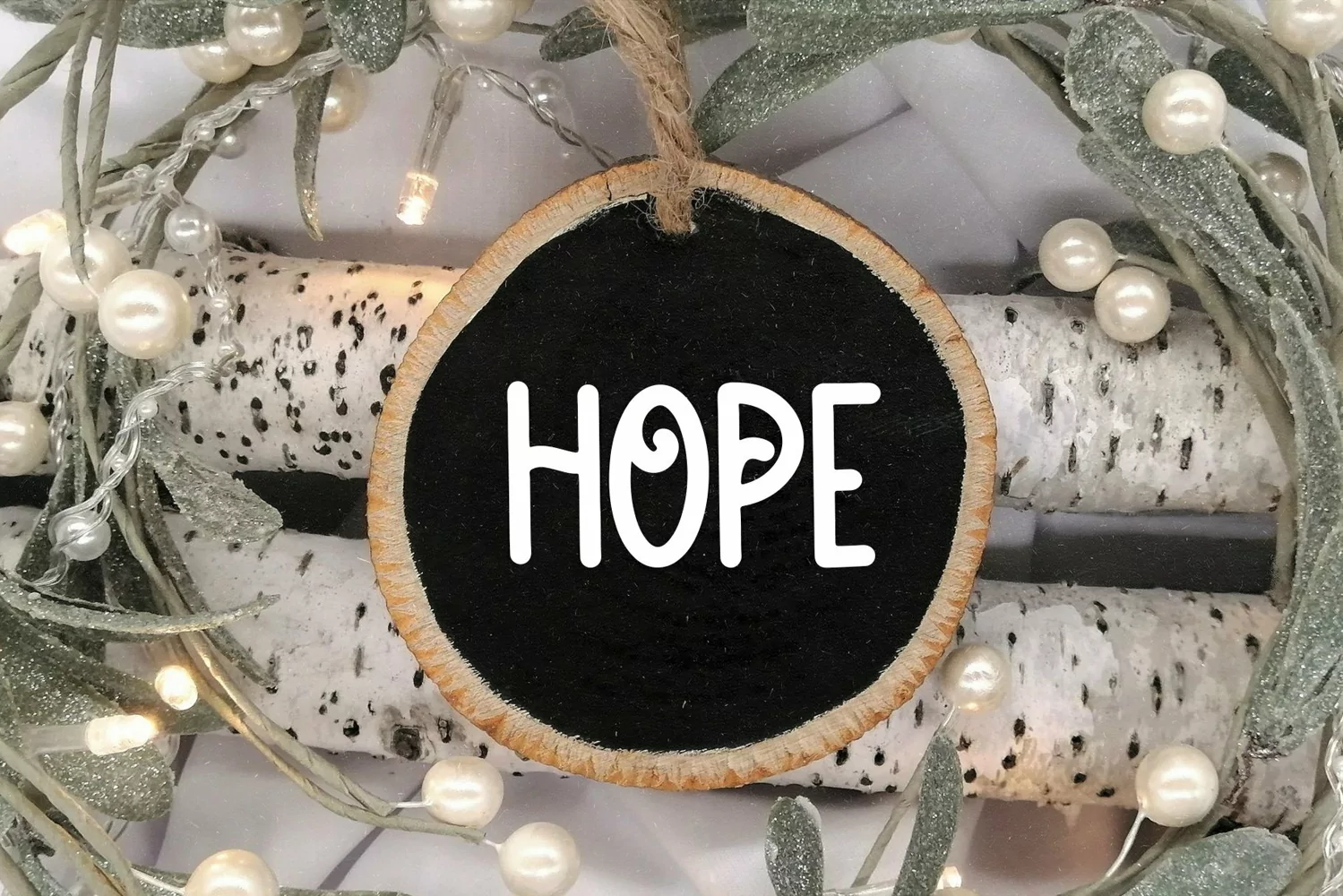
Christmas Sparkle is a fun handwritten font!
This font is perfect for quotes, shirt designs, websites, branding, children's designs, svg designs, blogs, logos, invitations and more!